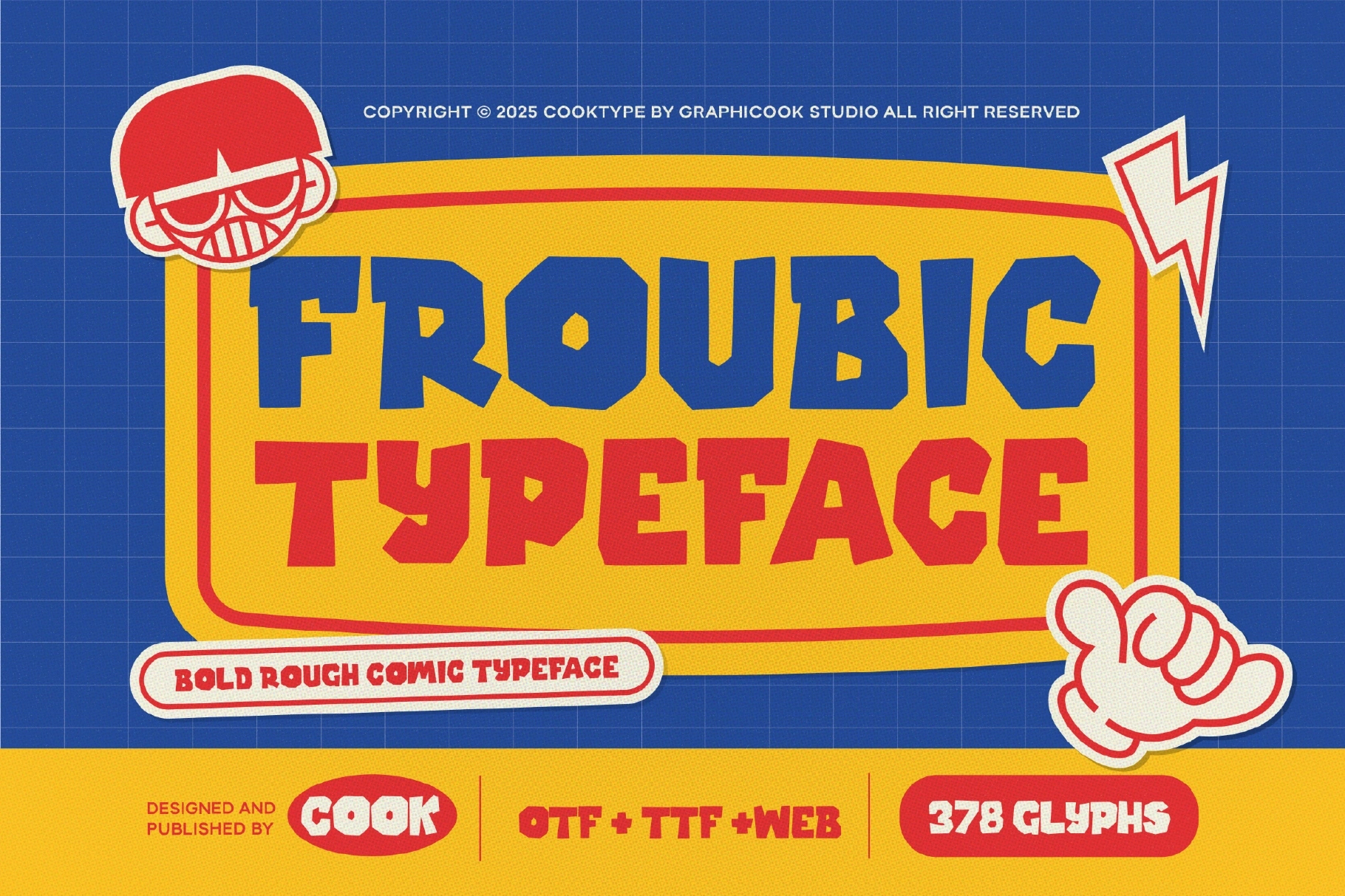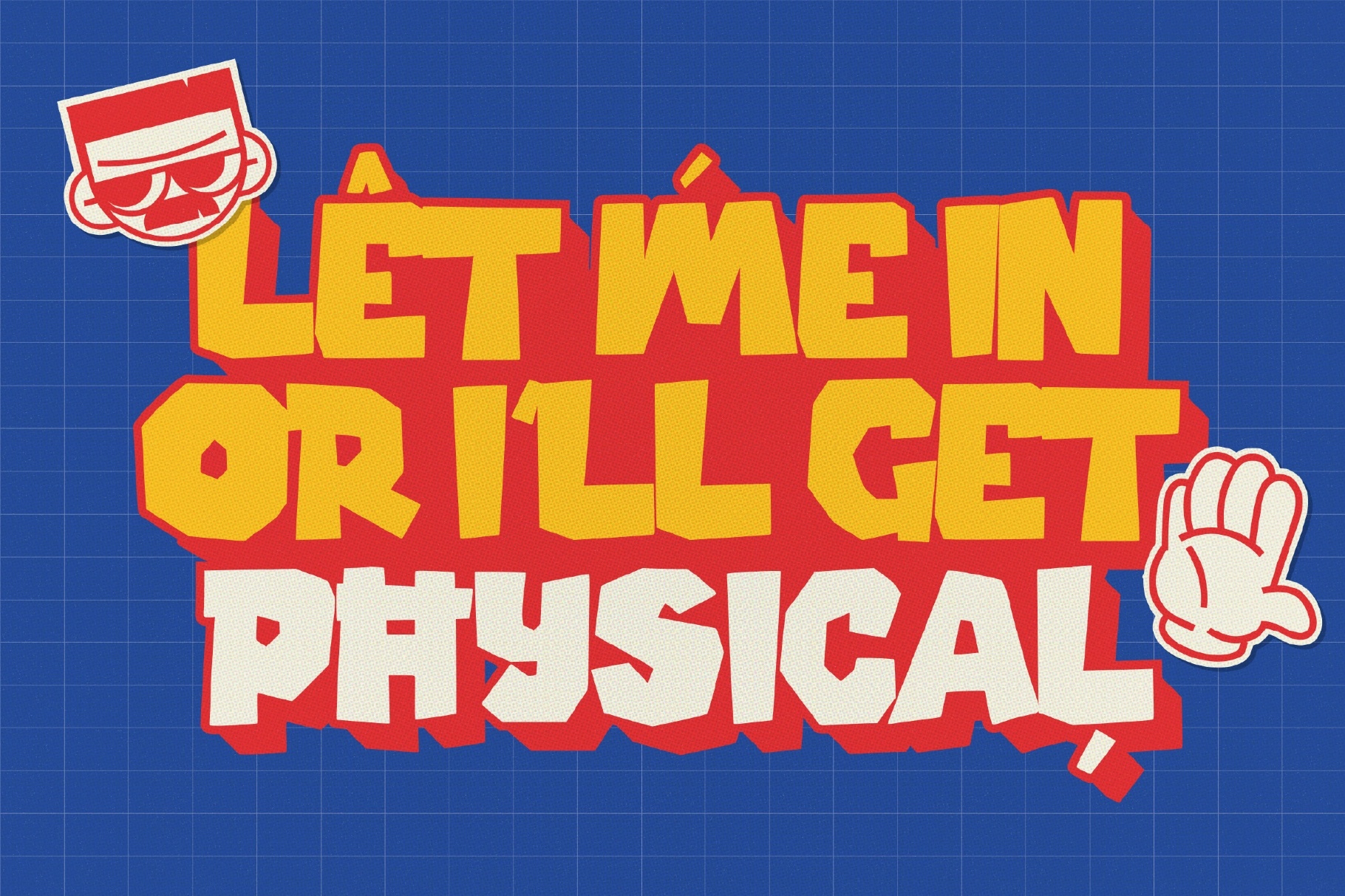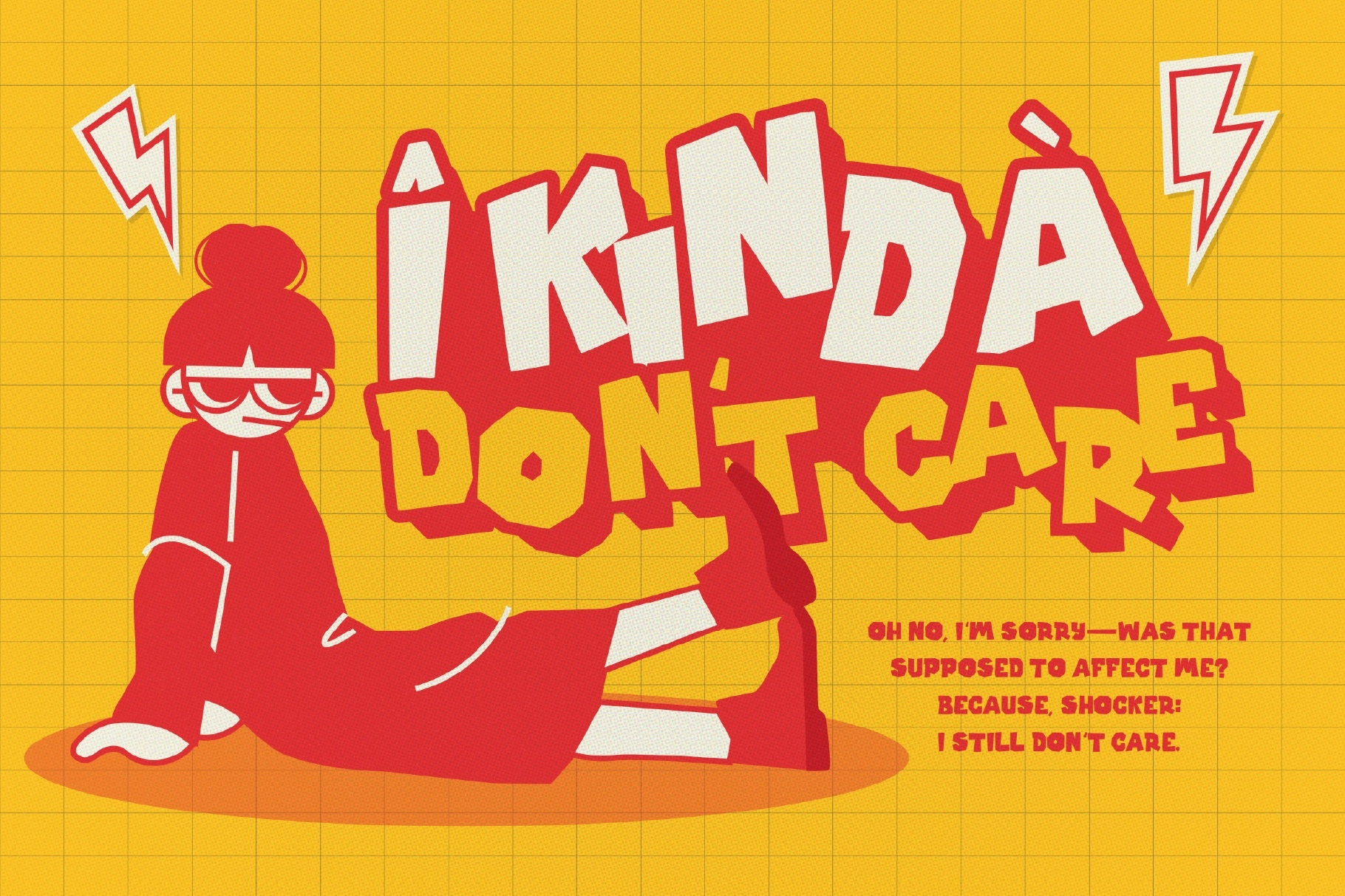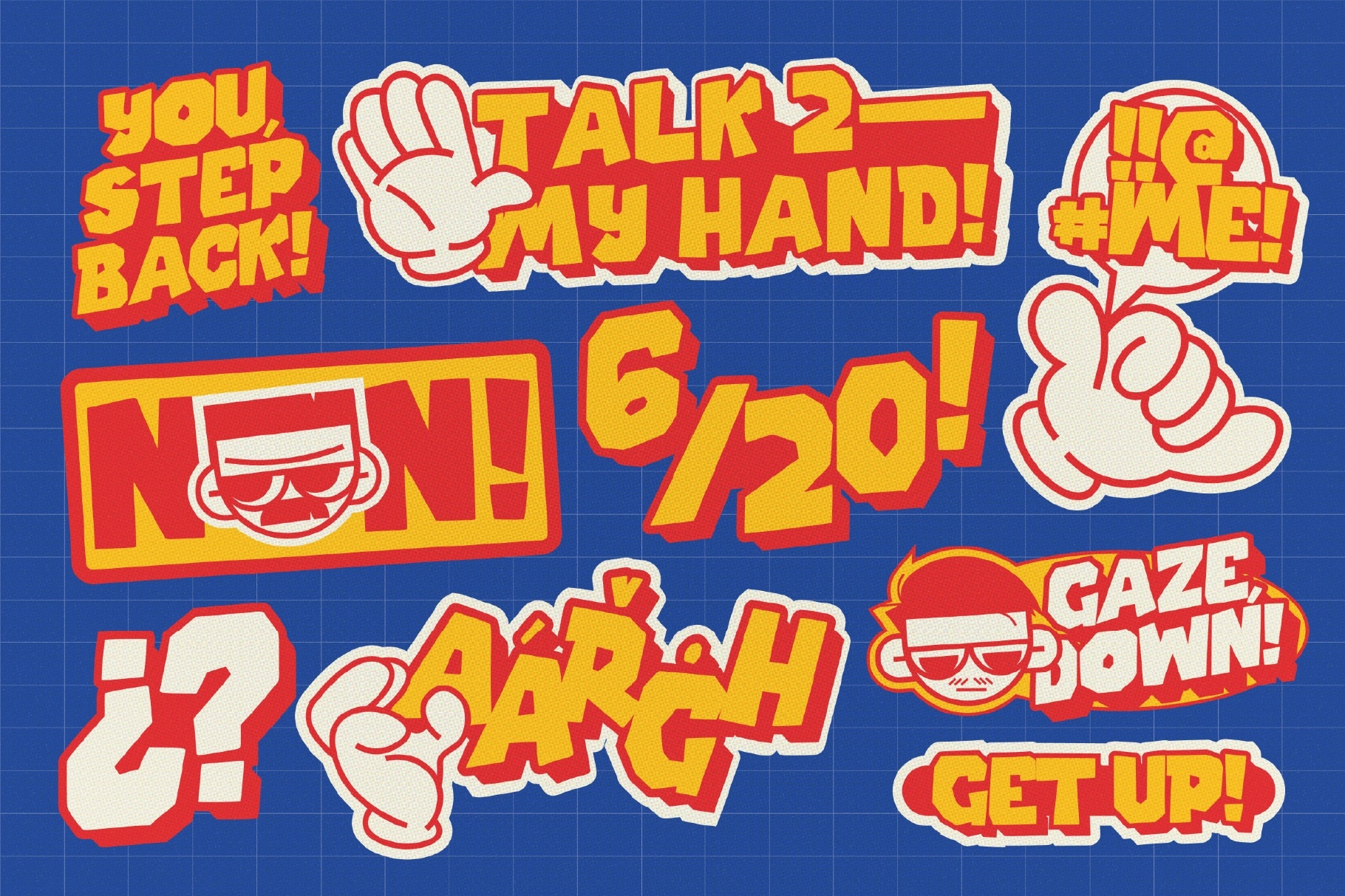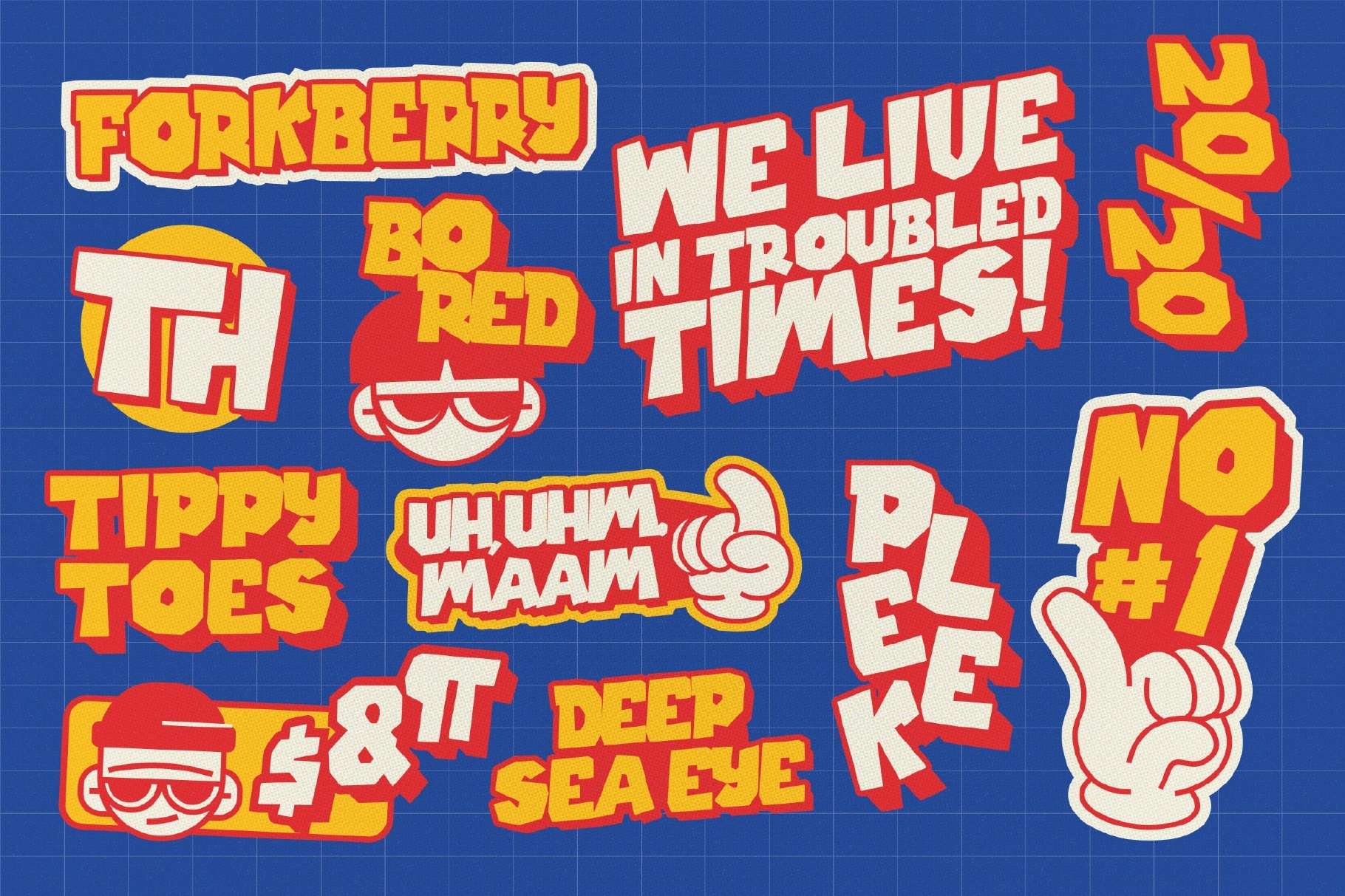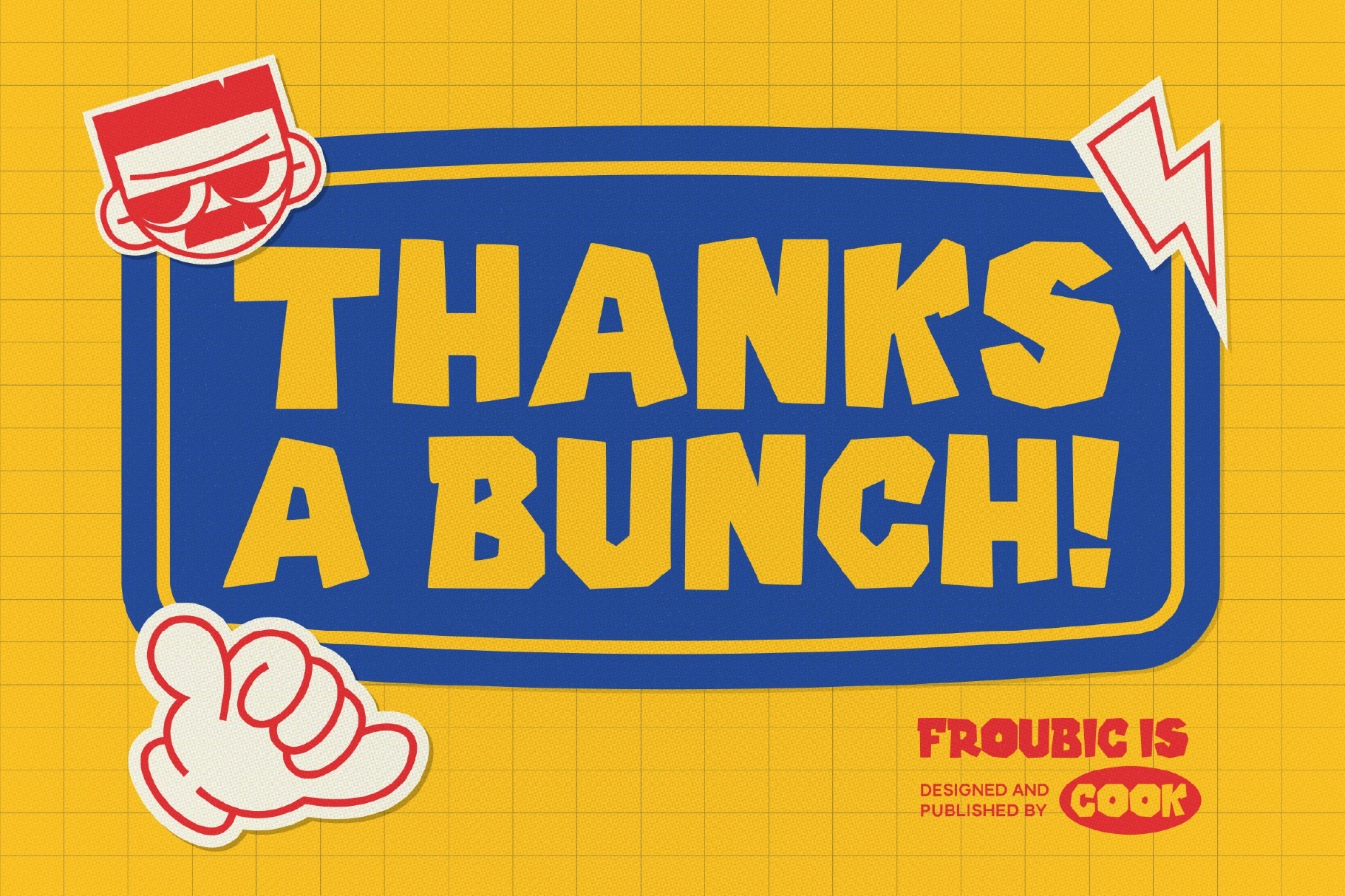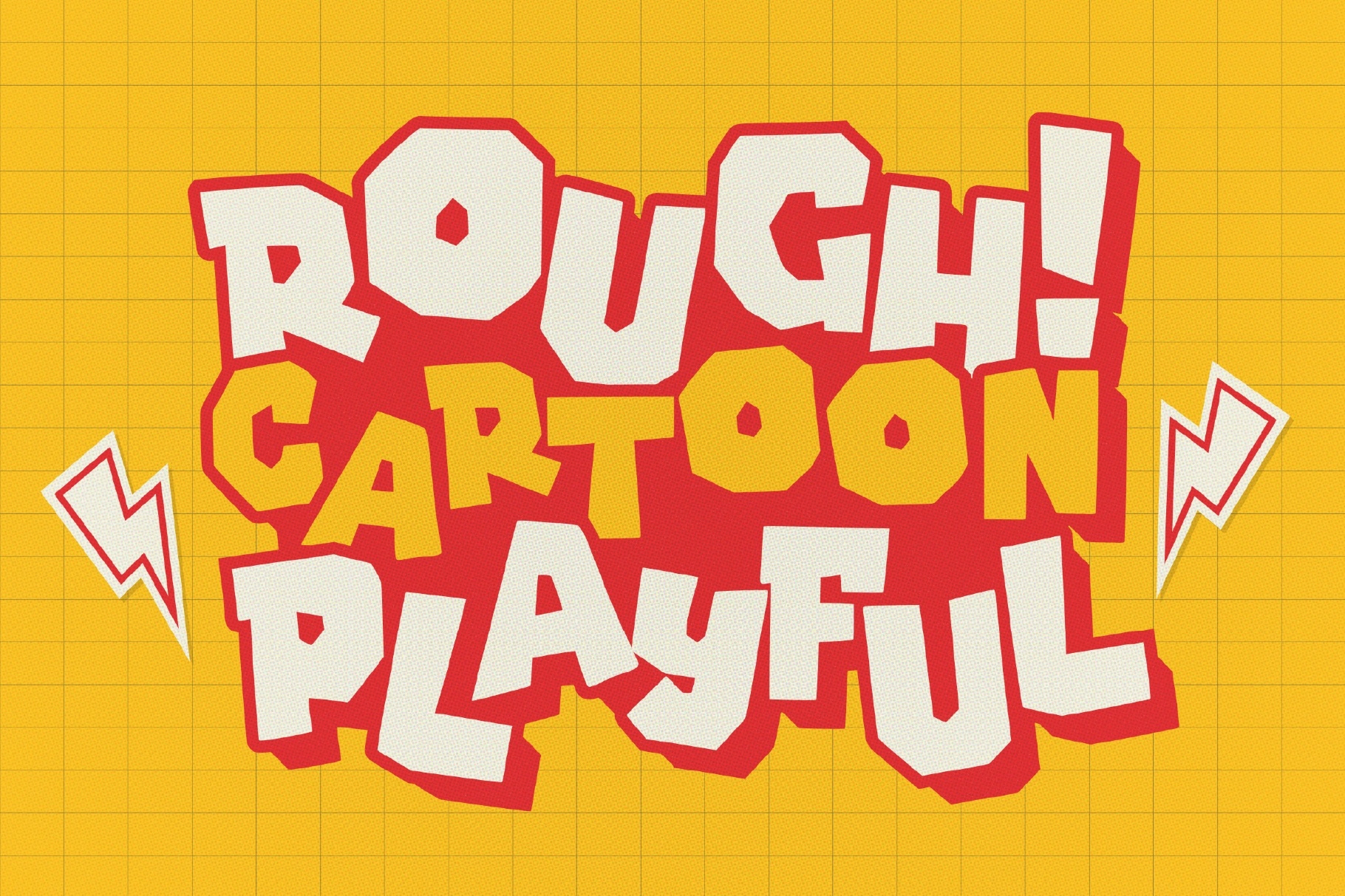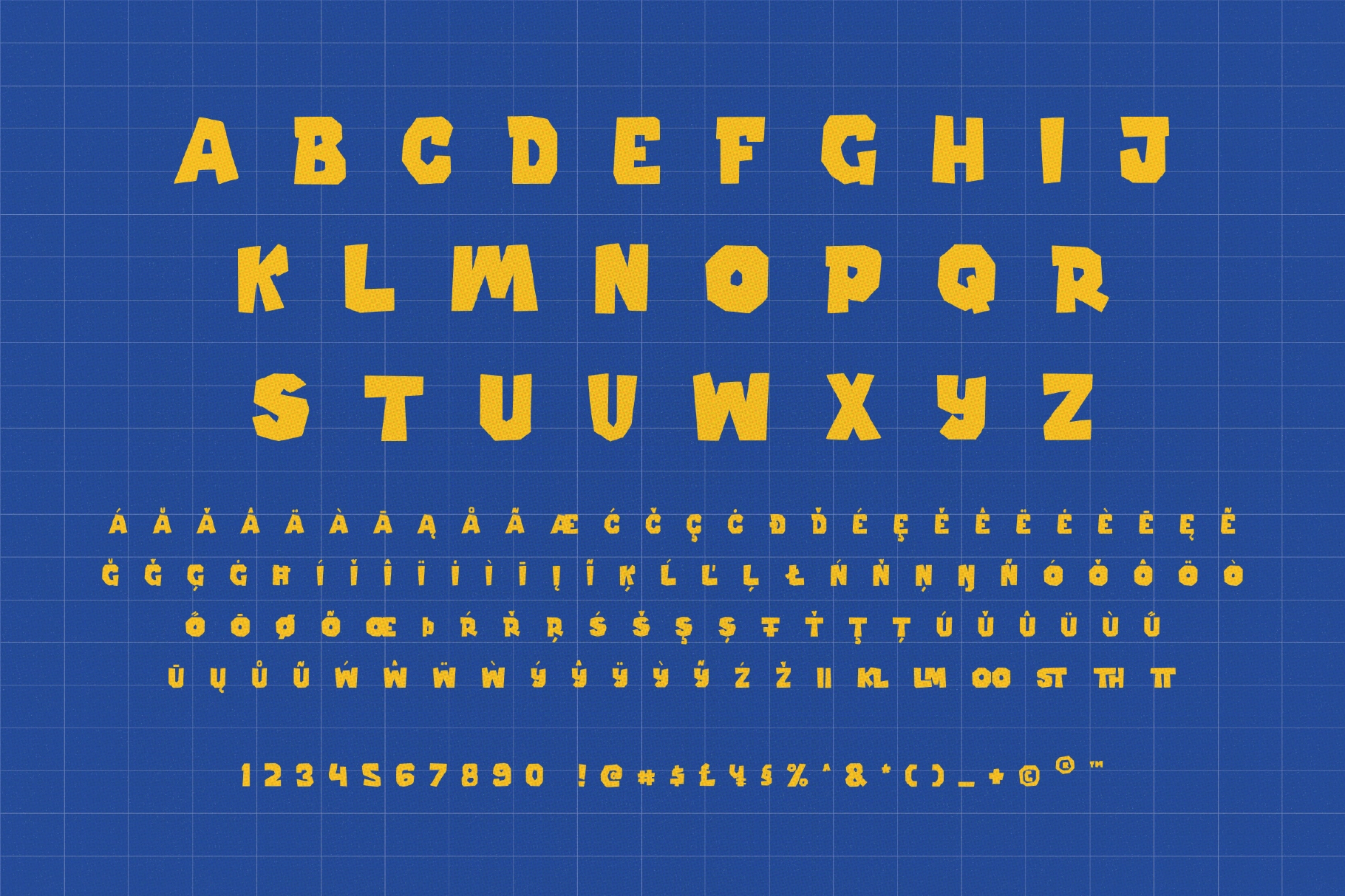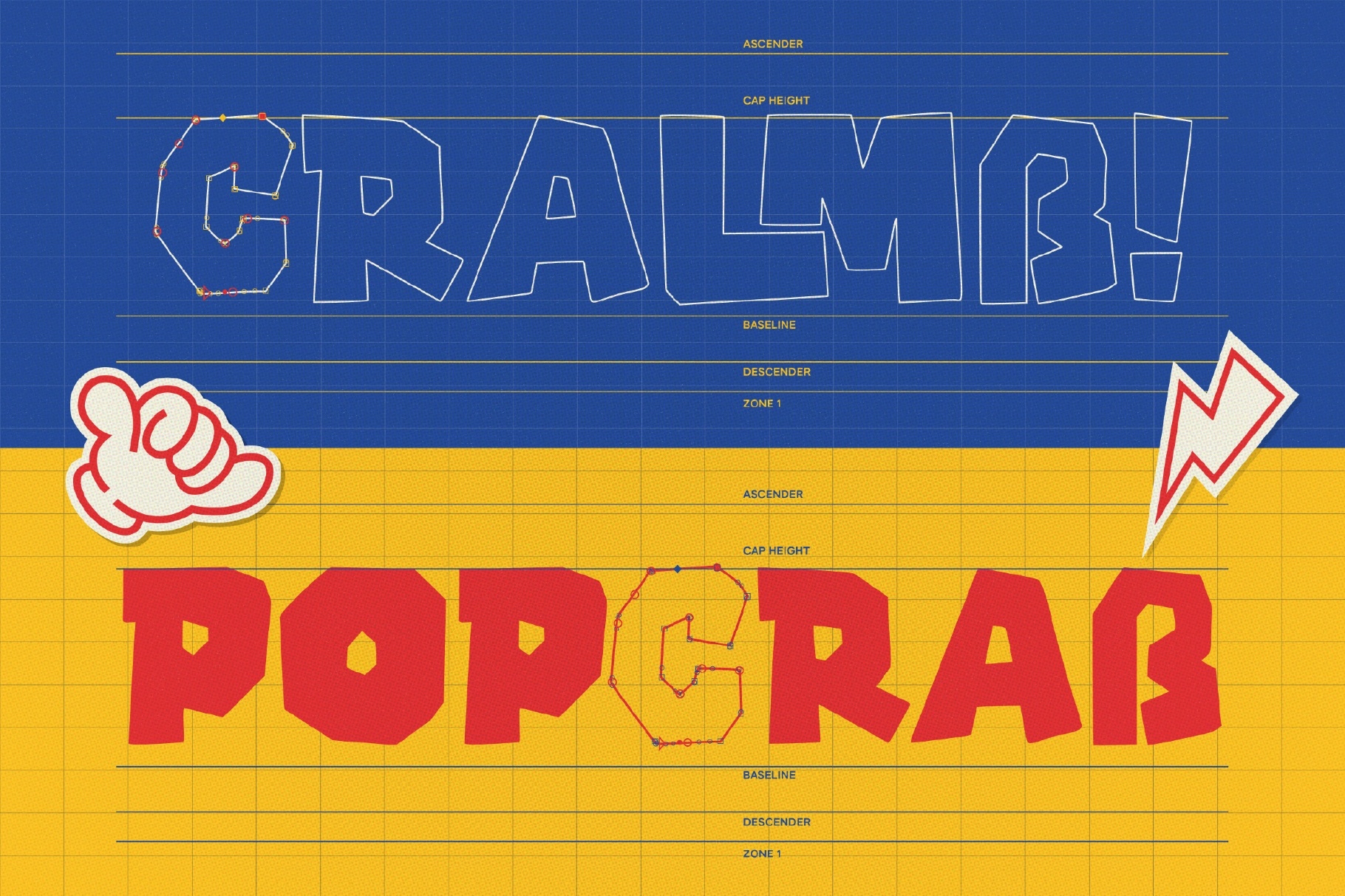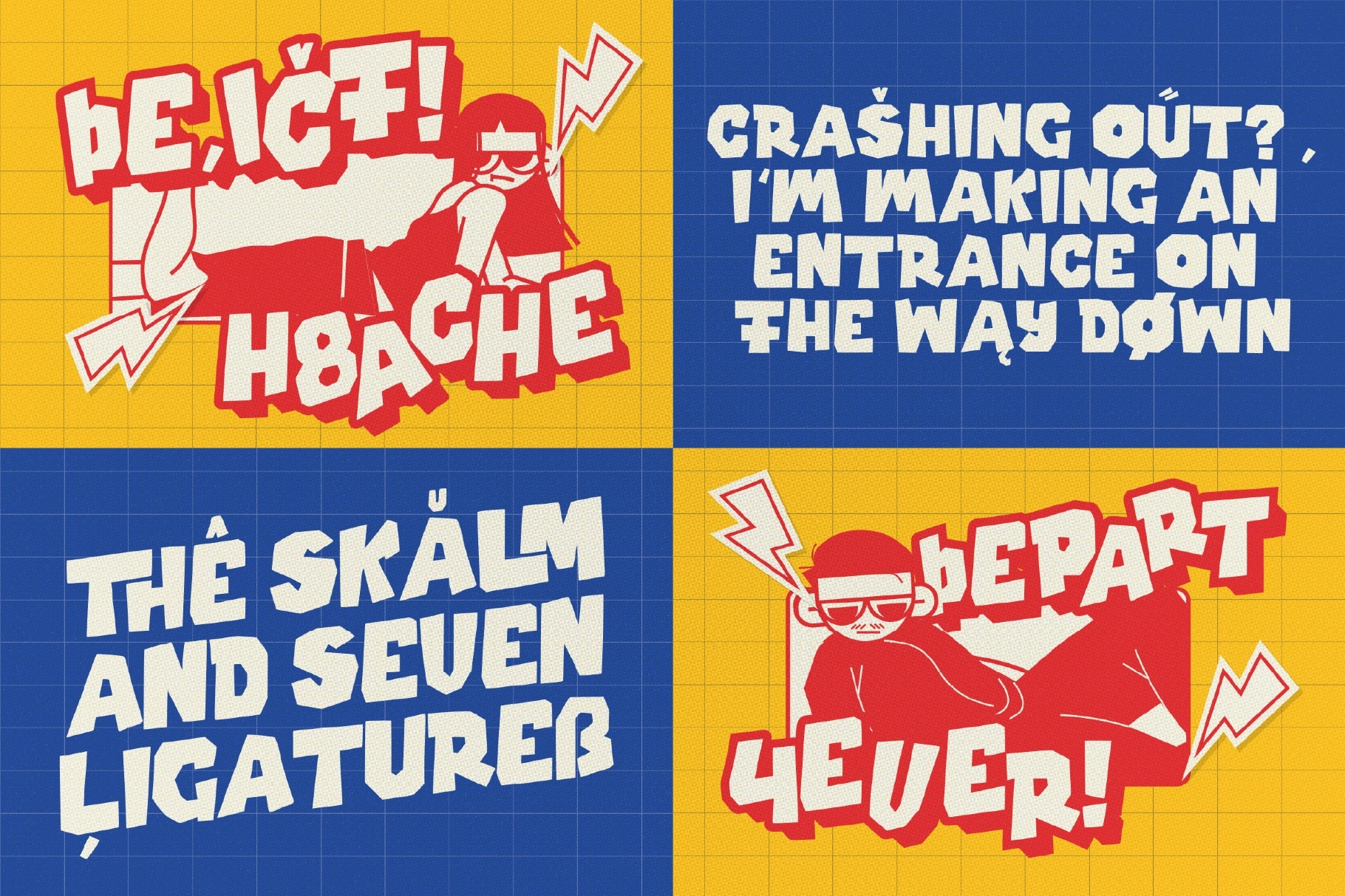
Froubic Font
Froubic
Froubic is a rough, bold font with an expressive style and tons of character, making it perfect for playful, funny, and attention-grabbing designs such as kid-friendly designs, fun posters, game titles, and comic-inspired projects.